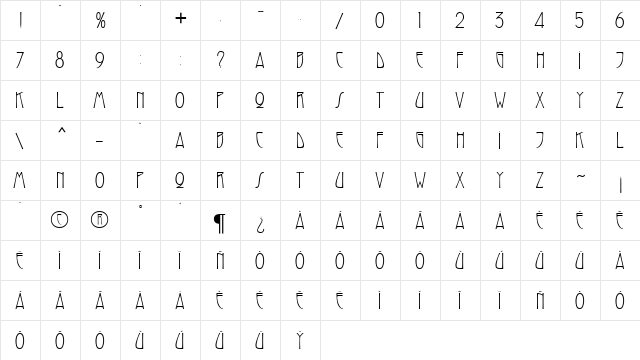
Swaak Centennial MN Regular
Design Context for Swaak Centennial MN Typeface
Swaak Centennial MN is a composed and adaptable typeface that performs quietly and consistently across a wide range of design contexts.